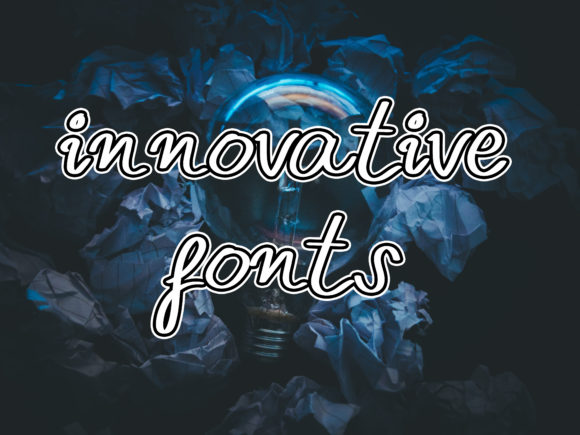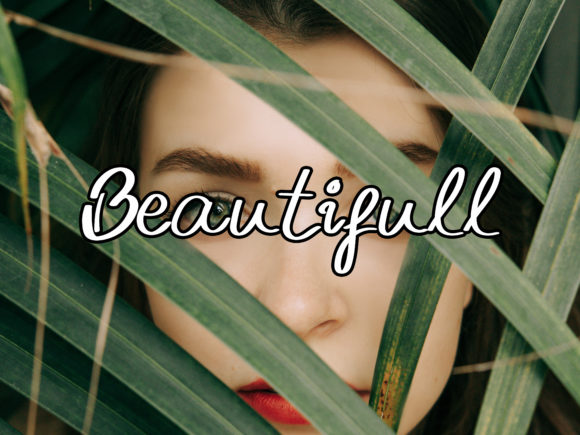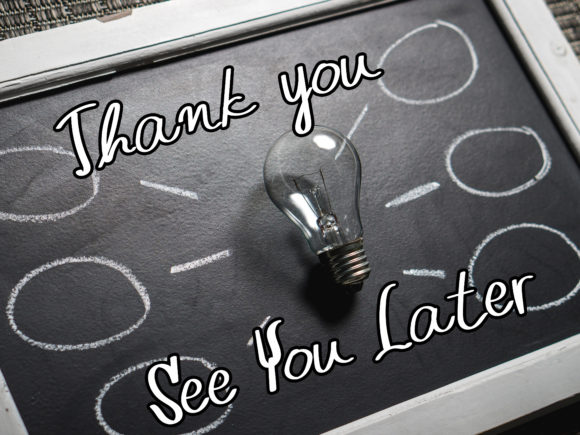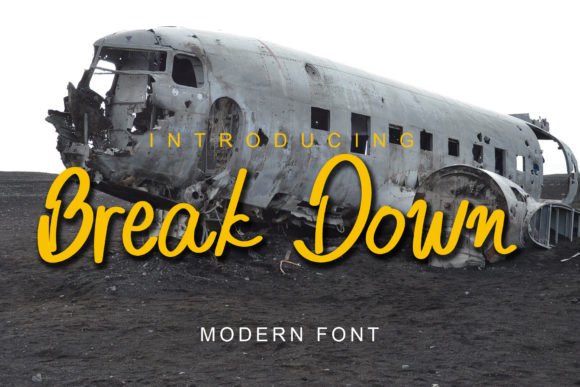
The Magic of Bringing Ideas to Life with the Break Down Font
Have you ever stared at a blank canvas, or a blank document, and felt like your creative ideas are just waiting to break free? You’re not alone. Many designers and artists know the thrill of trying to put their vision into words, but finding the right font can make all the difference.
Enter the Break Down Font, a flowing and festive handwritten font designed to elevate your creative projects to the next level. Whether you’re working on a design project, creating a social media post, or crafting a special message, this font is sure to bring a touch of personality and flair to your work.
For designers, the Break Down Font is a valuable addition to any toolkit. Its unique style and versatility make it perfect for a wide range of applications, from branding and marketing materials to digital art and graphics. With the Break Down Font, you’ll be able to bring your ideas to life in a way that’s both beautiful and effective.
Break Down Font Key Features
- Unique Characteristics: Break Down Font features a distinctive, hand-drawn aesthetic with bold lines and subtle textures, making it ideal for use in titles, headings, and other prominent text elements.
- Font Family: Break Down Font is part of a larger font family, offering a range of weights and styles to suit various design needs, from light and elegant to bold and dramatic.
- Scalability: Break Down Font is designed to be highly scalable, ensuring that it remains legible and visually appealing even at very small or very large sizes, making it perfect for use in a variety of applications, from business cards to billboards.
Break Down Font Review
I’ve had the chance to work with the Break Down Font, and I have mixed feelings about it. Here’s a balanced review of what works well and what doesn’t.
- ✨ Unique Character Set: The Break Down Font offers a wide range of characters that can add a touch of personality to your designs.
- ✨ Versatile Styling Options: It comes with multiple weights and styles, allowing you to experiment with different looks and feels.
- ✨ High-Quality Rendering: The font renders well on various devices and screen sizes, making it suitable for a wide range of applications.
- ⚠️ Limited Legibility: At smaller font sizes, the Break Down Font can become difficult to read due to its intricate details.
- ⚠️ Limited Support for Special Characters: The font’s character set is extensive, but it lacks support for certain special characters, which can be a problem in certain contexts.
- ⚠️ Not Ideal for Body Text: While the Break Down Font is great for headings and titles, it’s not the best choice for body text due to its unique style, which can be tiring to read.
Overall, the Break Down Font is a great choice for designers who want to add some personality to their designs. However, it’s essential to consider its limitations and use it judiciously in your projects.
Break Down Font: A Practical Application Guide
Break Down Font is a versatile tool that can be used in a variety of design applications, including:
- Creating custom typography for logos and branding